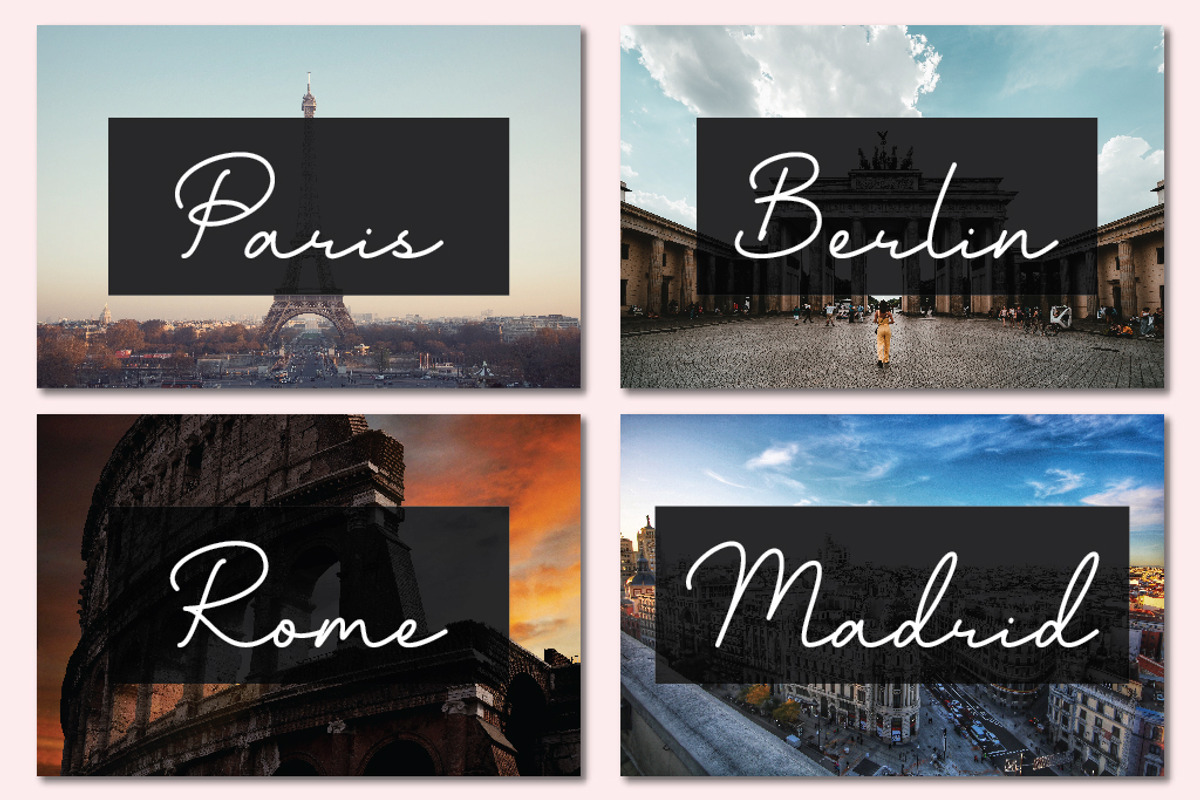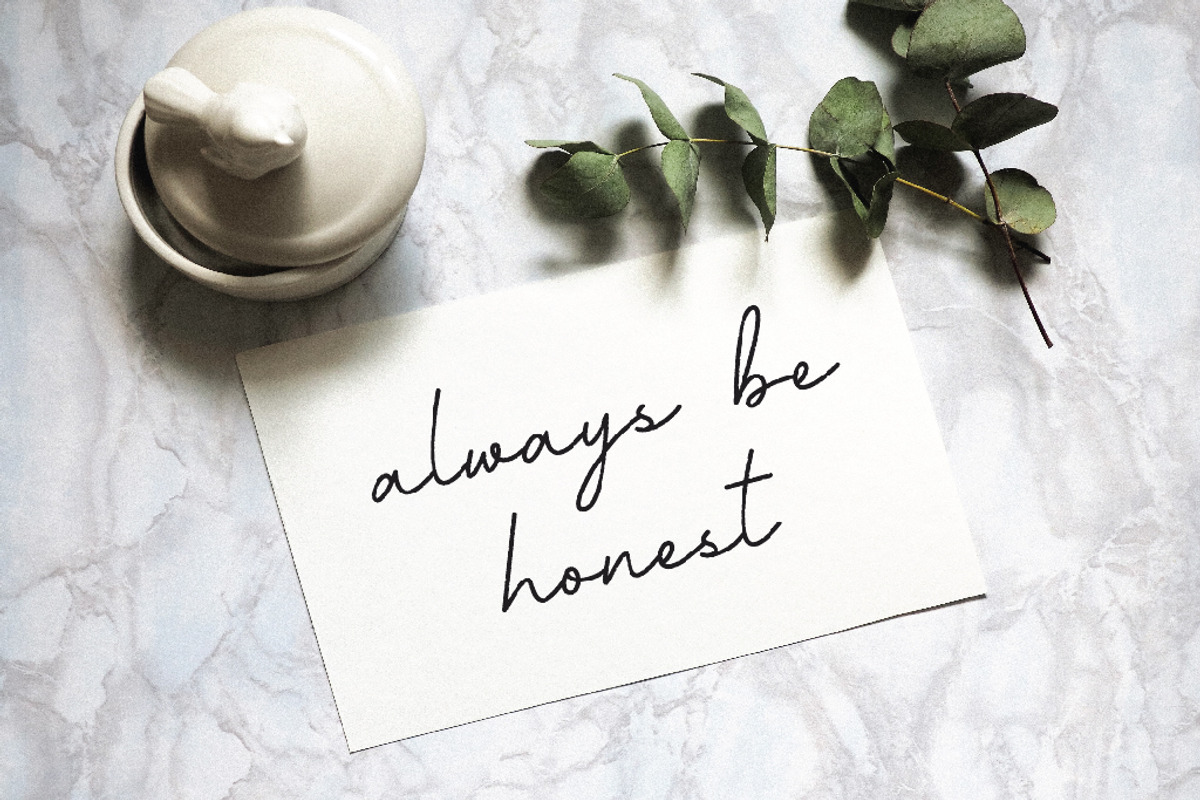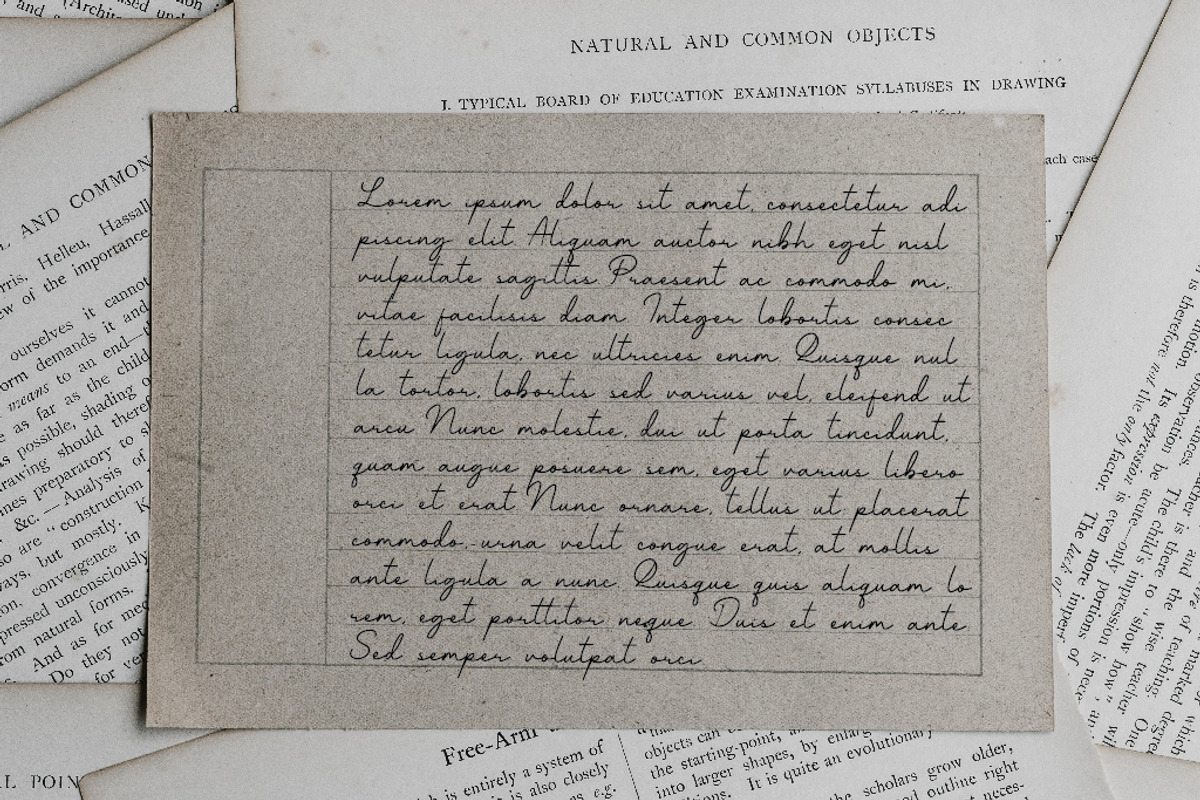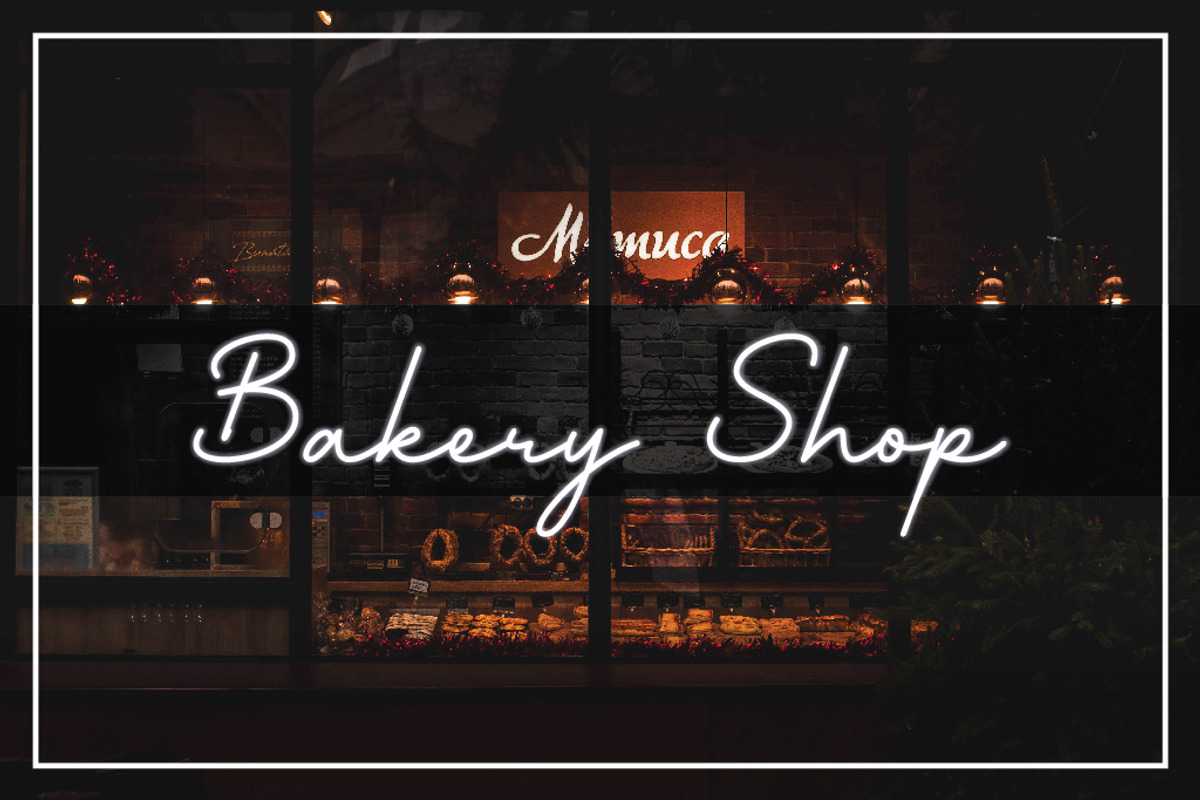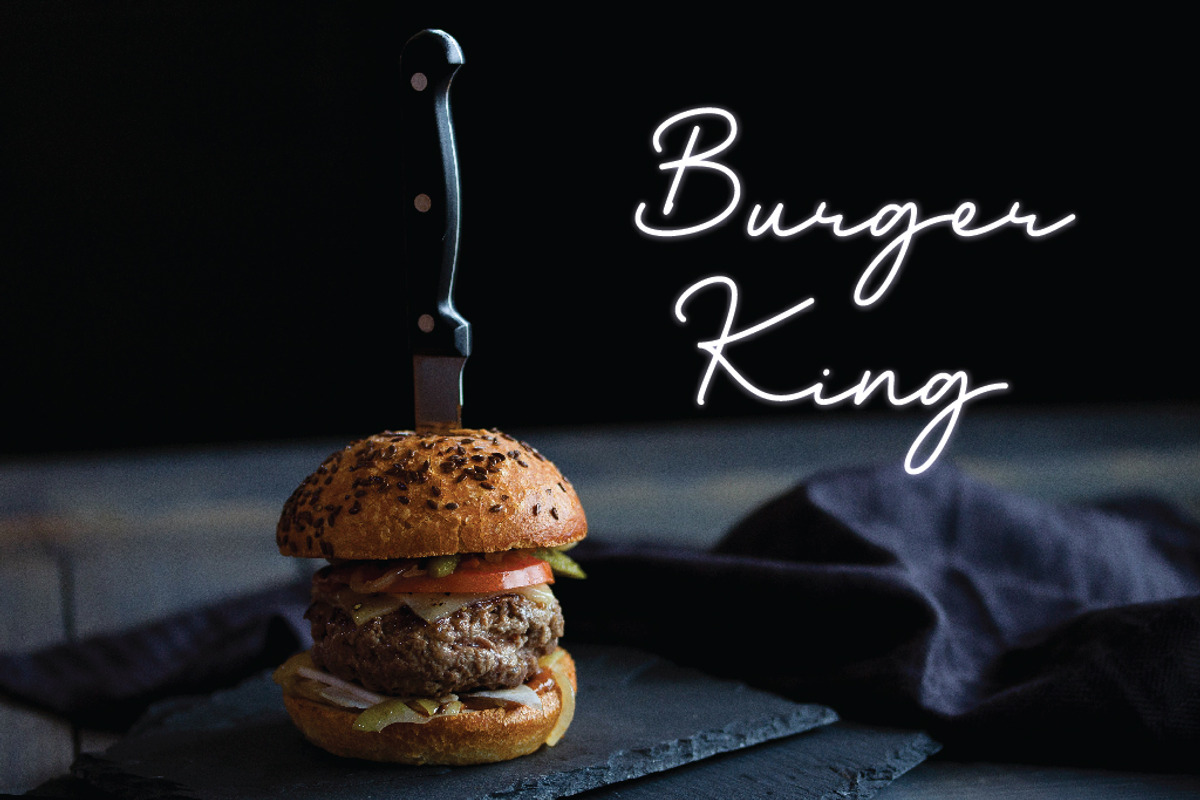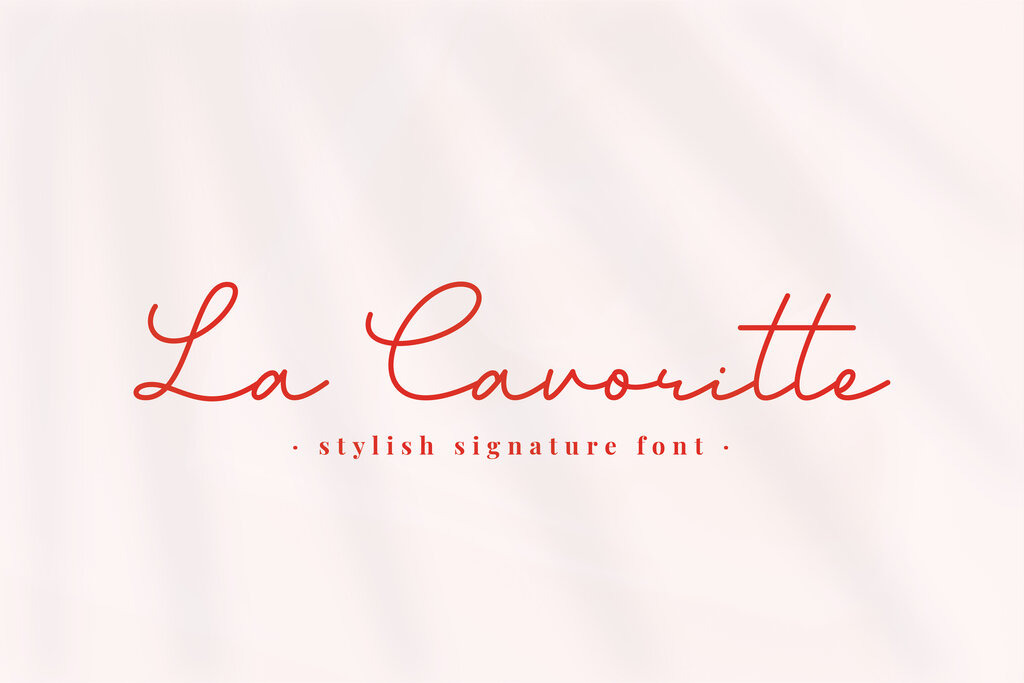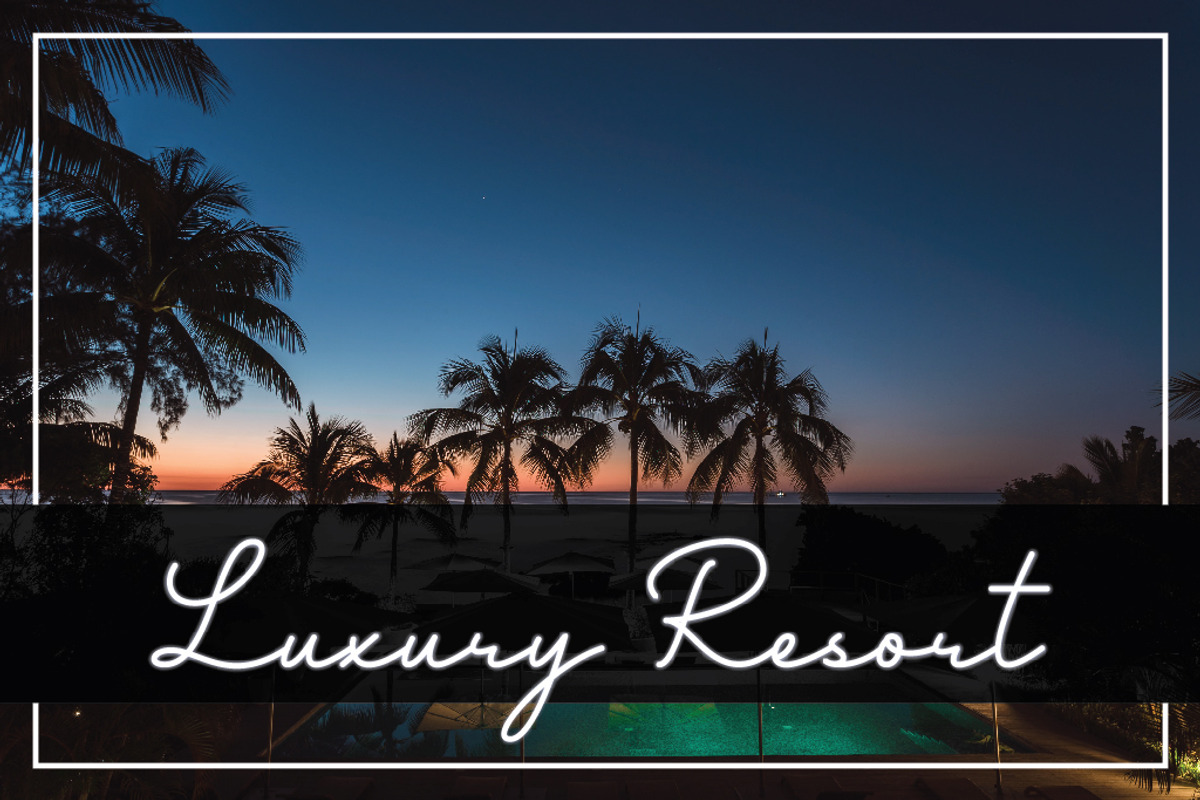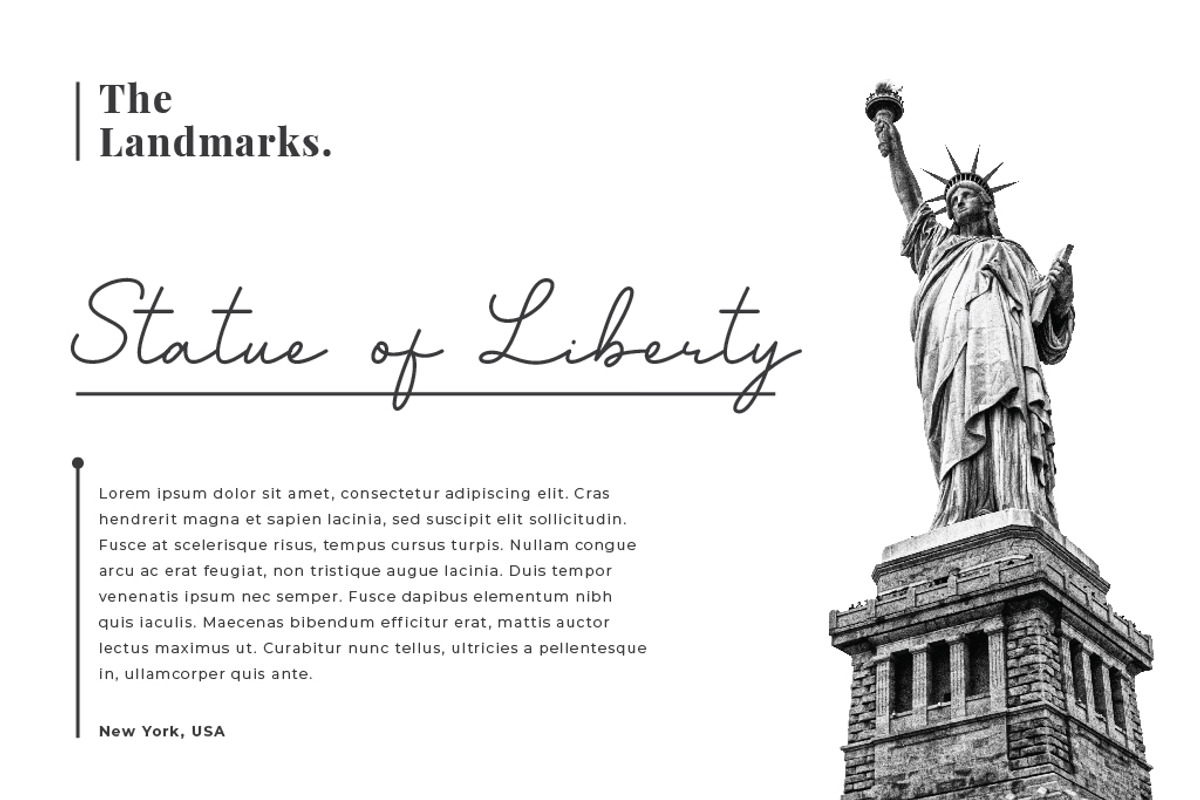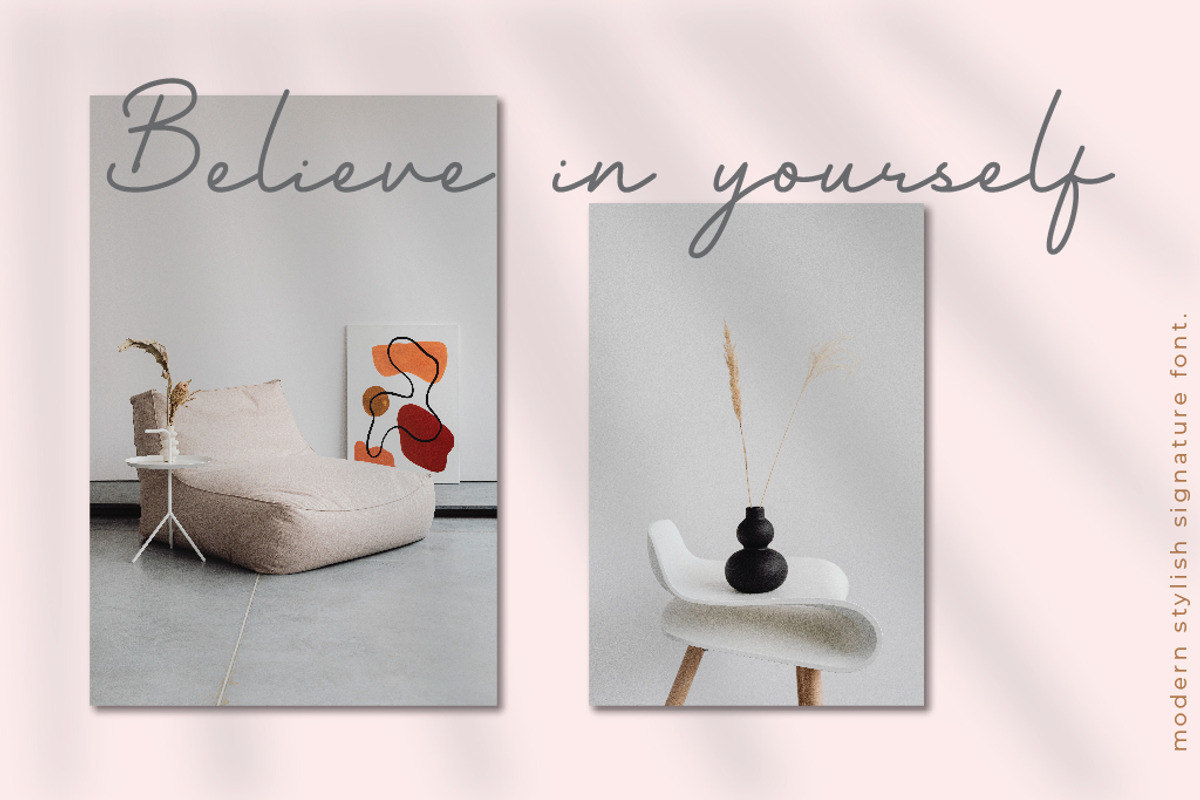
La Cavoritte Script Font
La Cavoritte is a stylish and modern signature font with a touch of elegance. La Cavoritte matches any design by adding a touch of luxury and minimalism. La Cavoritte is compatible with many tools, such as Illustrator and Photoshop and supports multilingual features. Its subtle strokes and original script style make it perfect for product design, such as branding for a pastry shop, jewelry, clothing, restaurant, print templates, or anything else to communicate your brand.